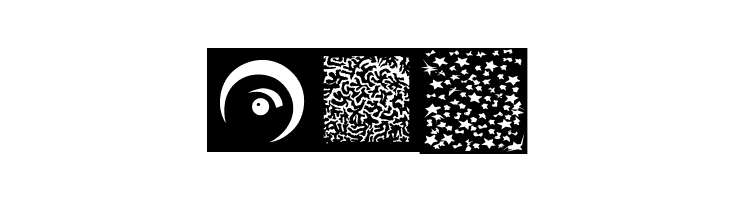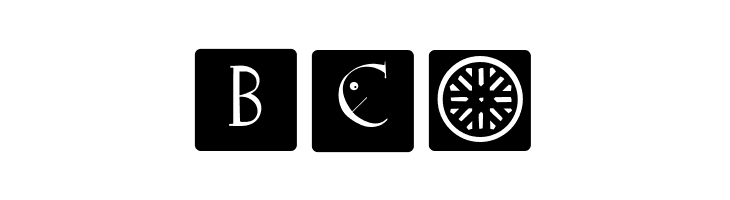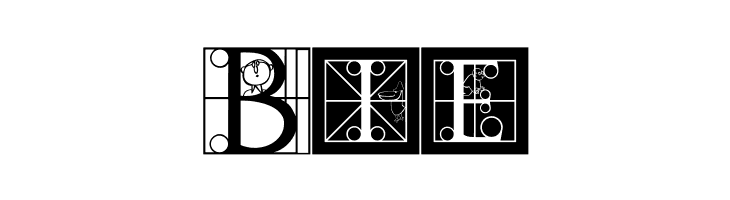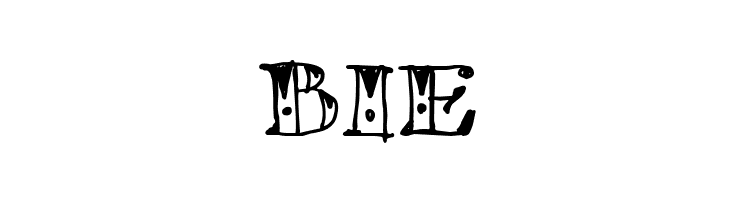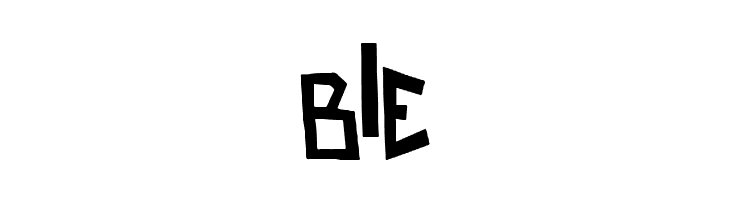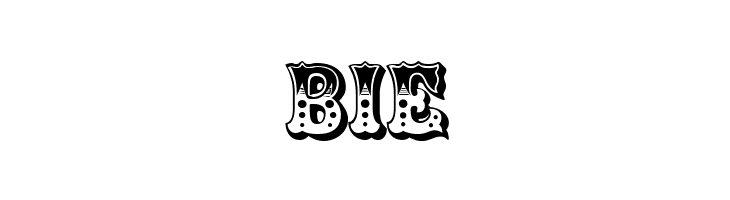
• robo pimp slap
( Fonts by Press Gang Studios - Andeh Pinkard - www.pressgang-studios.com )
A bold, angular font with a futuristic and edgy design.
• robo pimp slap Bold
( Fonts by Press Gang Studios - Andeh Pinkard - www.pressgang-studios.com )
Bold, angular font with a modern, edgy style.
• robo pimp slap Italic
( Fonts by Press Gang Studios - Andeh Pinkard - www.pressgang-studios.com )
A bold, angular font with a futuristic and edgy style.
• Rockets
( John Stracke - www.thibault.org/fonts/ )
A playful, space-themed font with unique character embellishments.
• RockFontsOne
A decorative symbol and illustration set with bold, eclectic designs.
• ROCKY AOE
A bold, dripping font with a horror-themed style.
• RodgauCaps
An artistic and decorative font with intricate geometric patterns and flourishes.
• RomanaCapsClassicSquares
A decorative font with classic charm, featuring characters enclosed in squares with elegant embellishments.
• Rosalia
A bold, decorative font with a playful, vintage circus-inspired design.
• ROSE TATTOO
( Fonts by billyargel.blogspot.com - Billy Argel )
A bold, decorative font with a tattoo-inspired, edgy aesthetic.